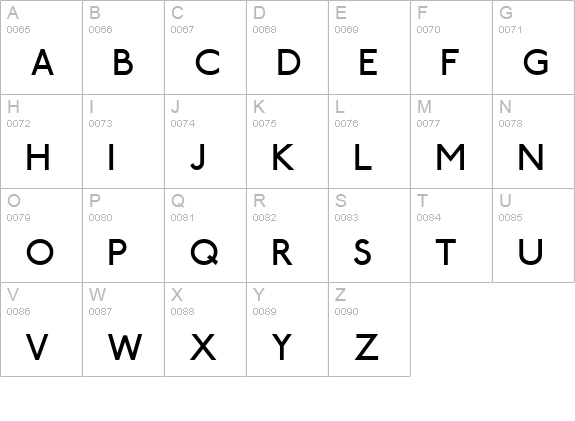
SubwayLondon Font Details
SubwayLondon font is a modern and sleek typeface inspired by the bustling energy of the London underground. Its clean lines and geometric shapes give it a contemporary and urban feel, making it perfect for a wide range of design projects. This versatile font is free to download at FontsMarket.com, allowing you to add a touch of London sophistication to your creations without any cost. Whether you're working on a poster, website, or branding project, SubwayLondon font will bring a touch of metropolitan flair to your designs. Download it today and elevate your typography game with this stylish and dynamic typeface.